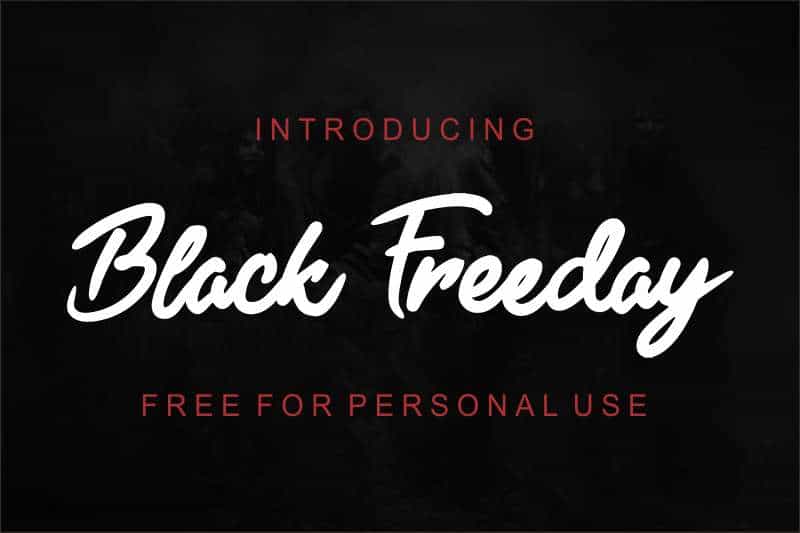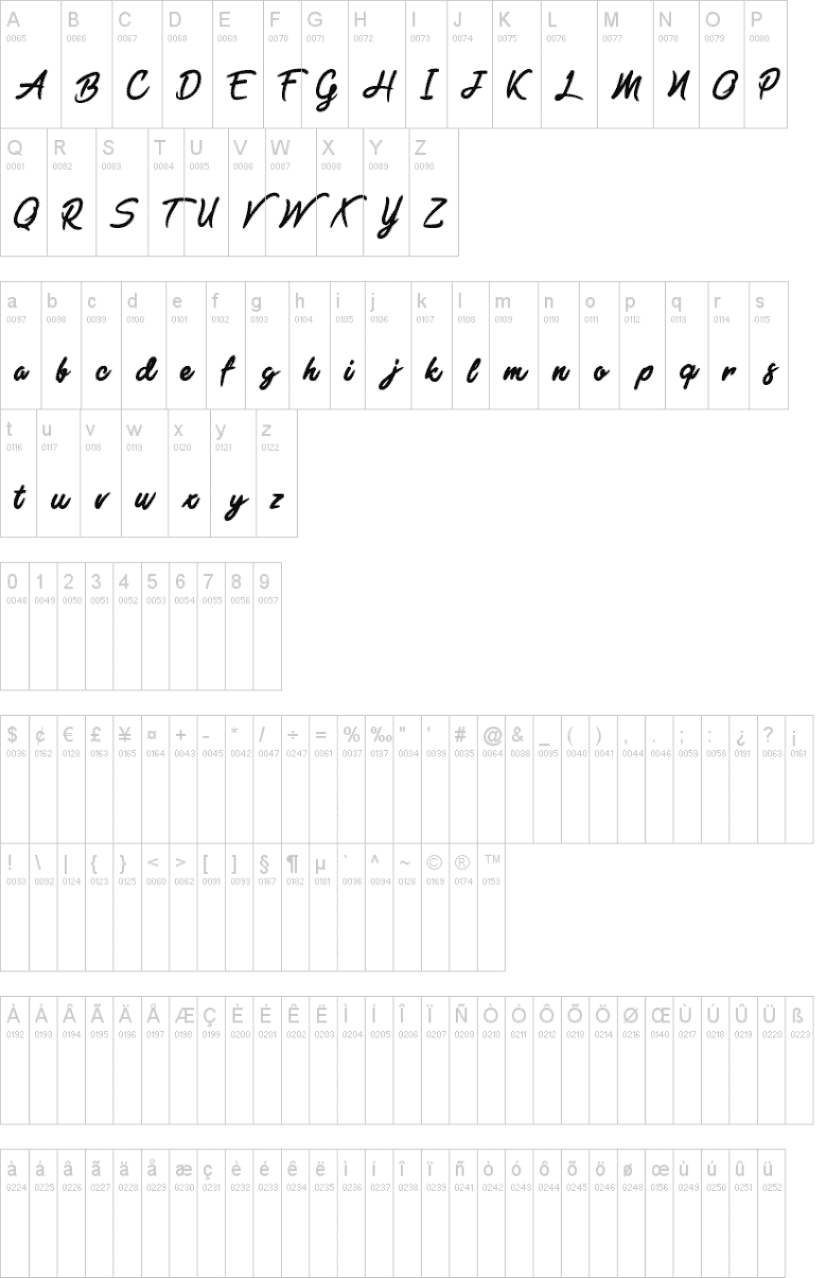
The font named Black Freeday has been designed to mirror the passion and enthusiasm linked to the Black Friday campaign. Featuring two styles that give it a unique look, this font can help make an impressive design statement.